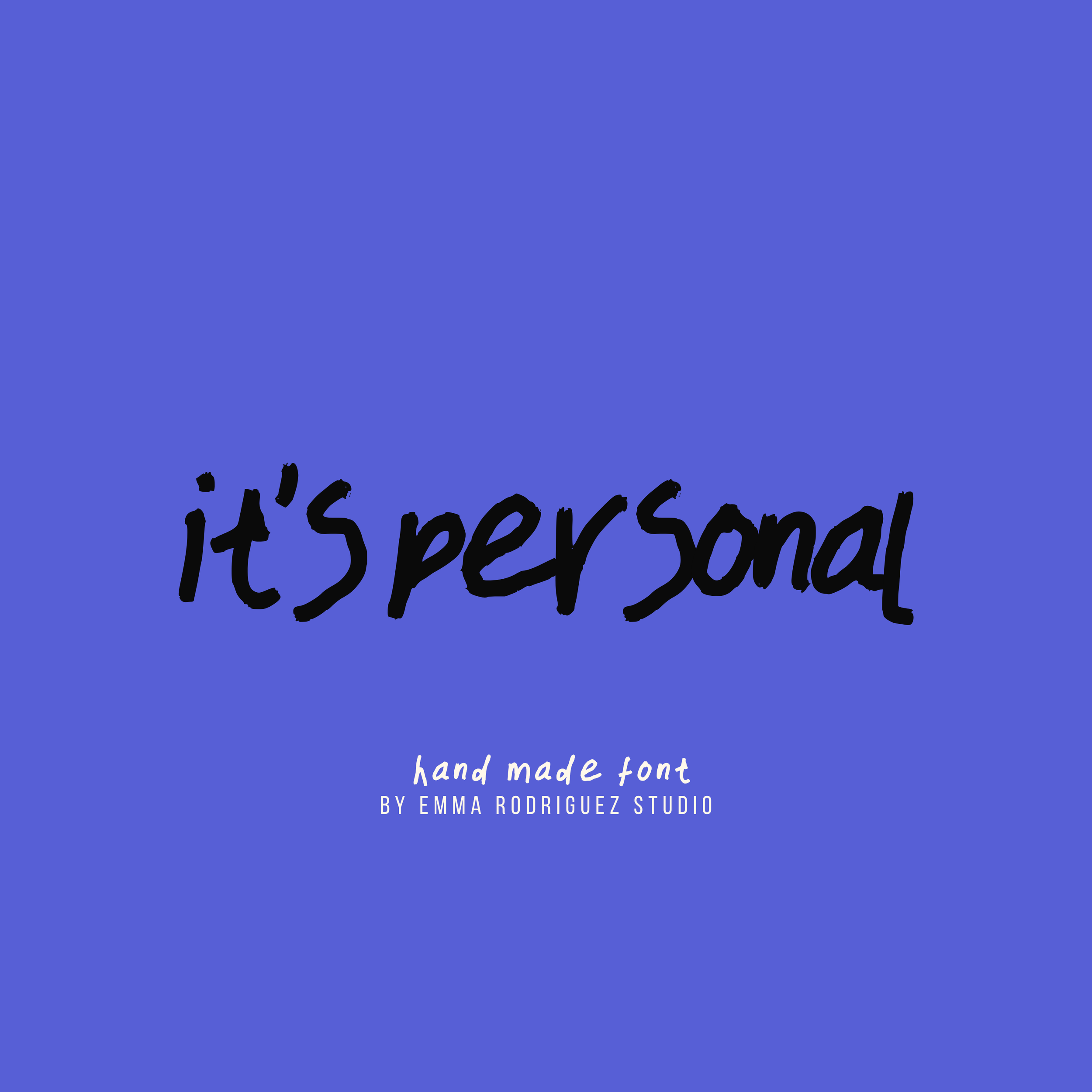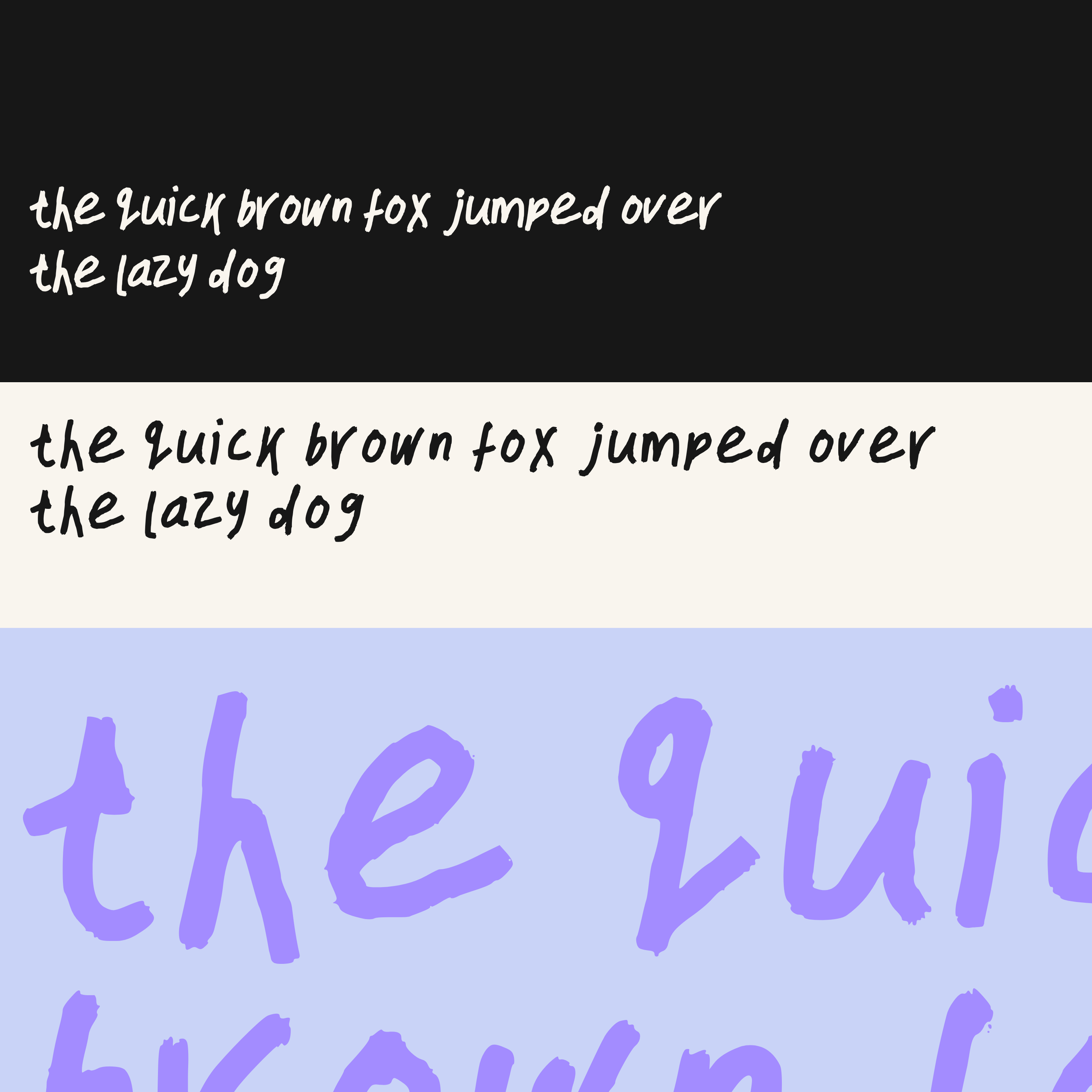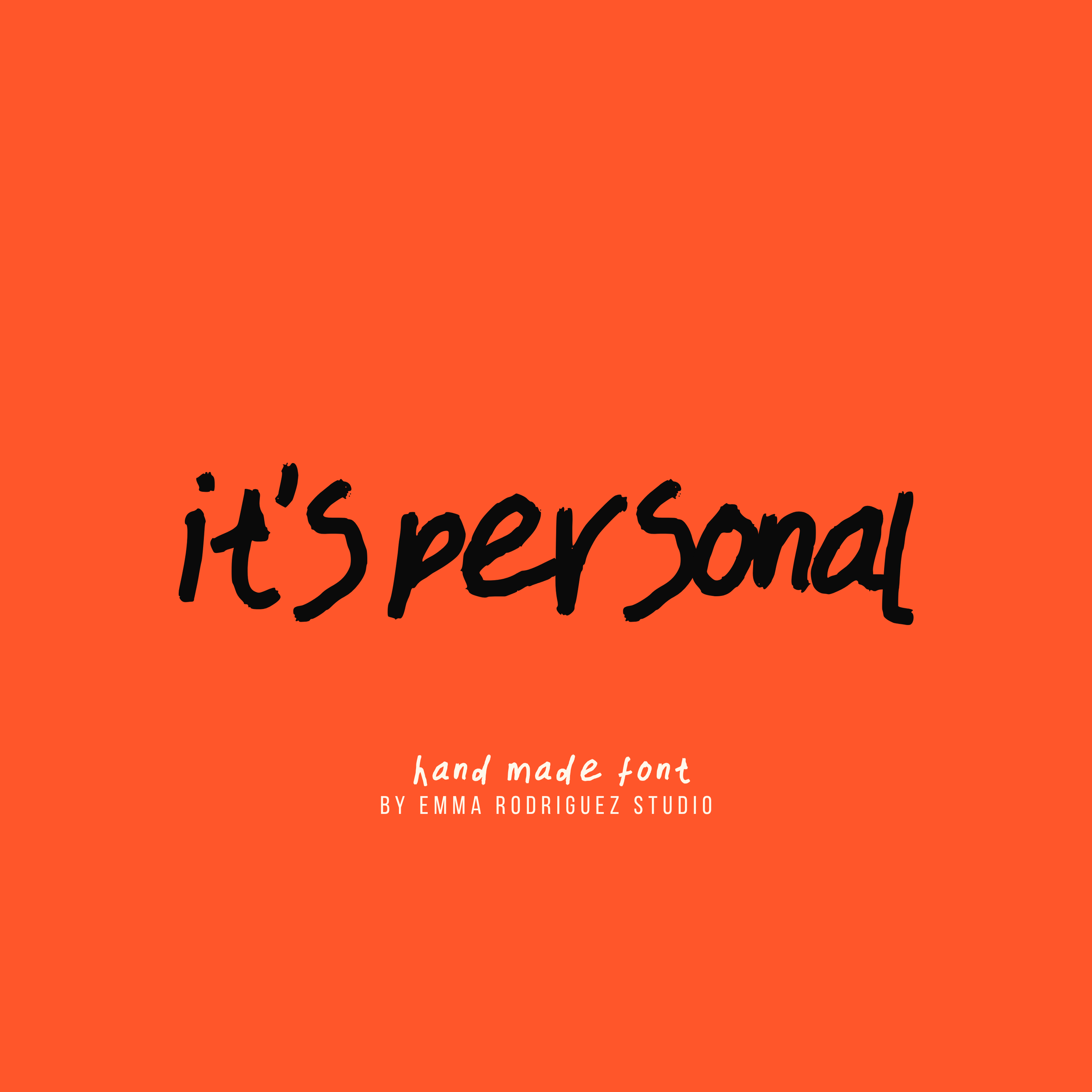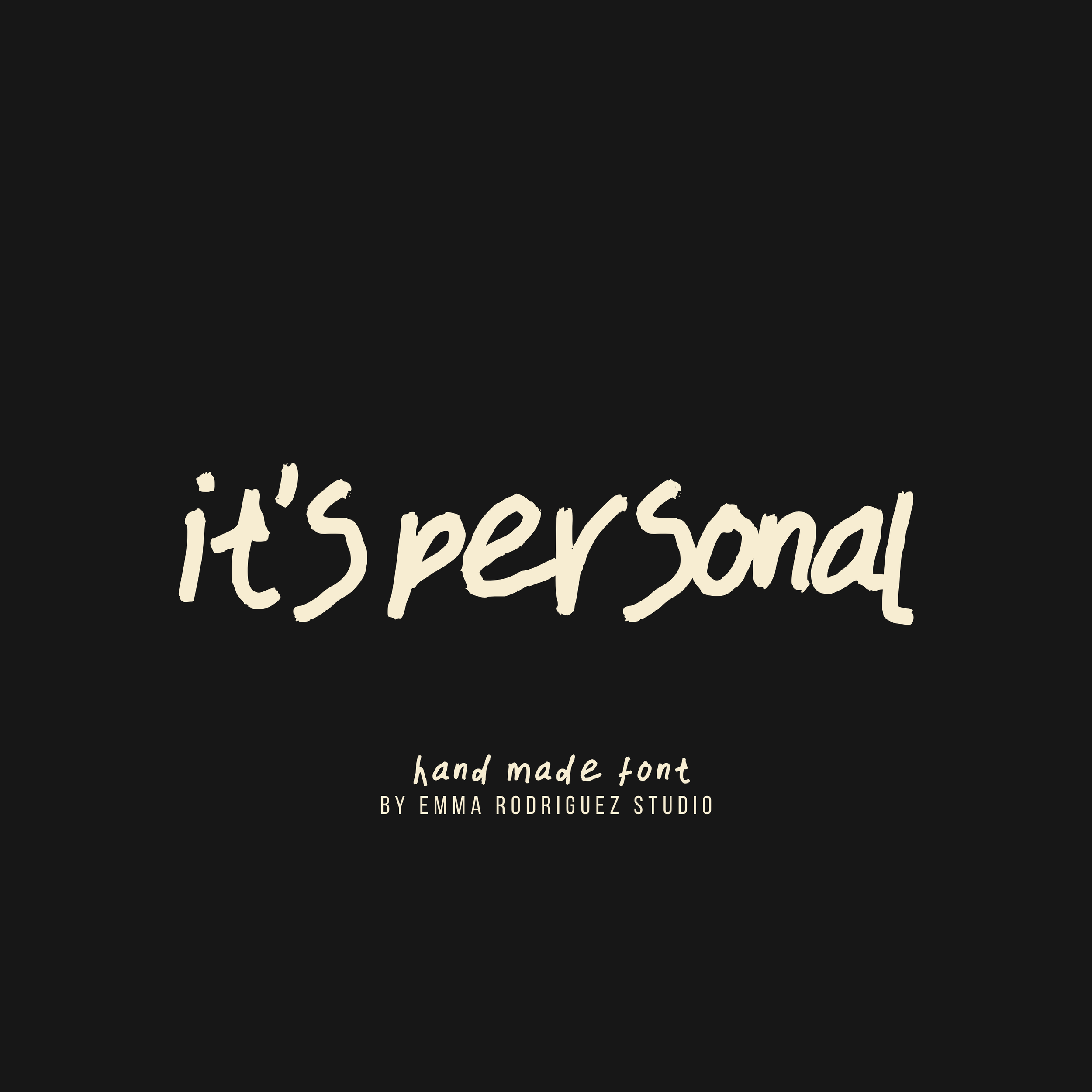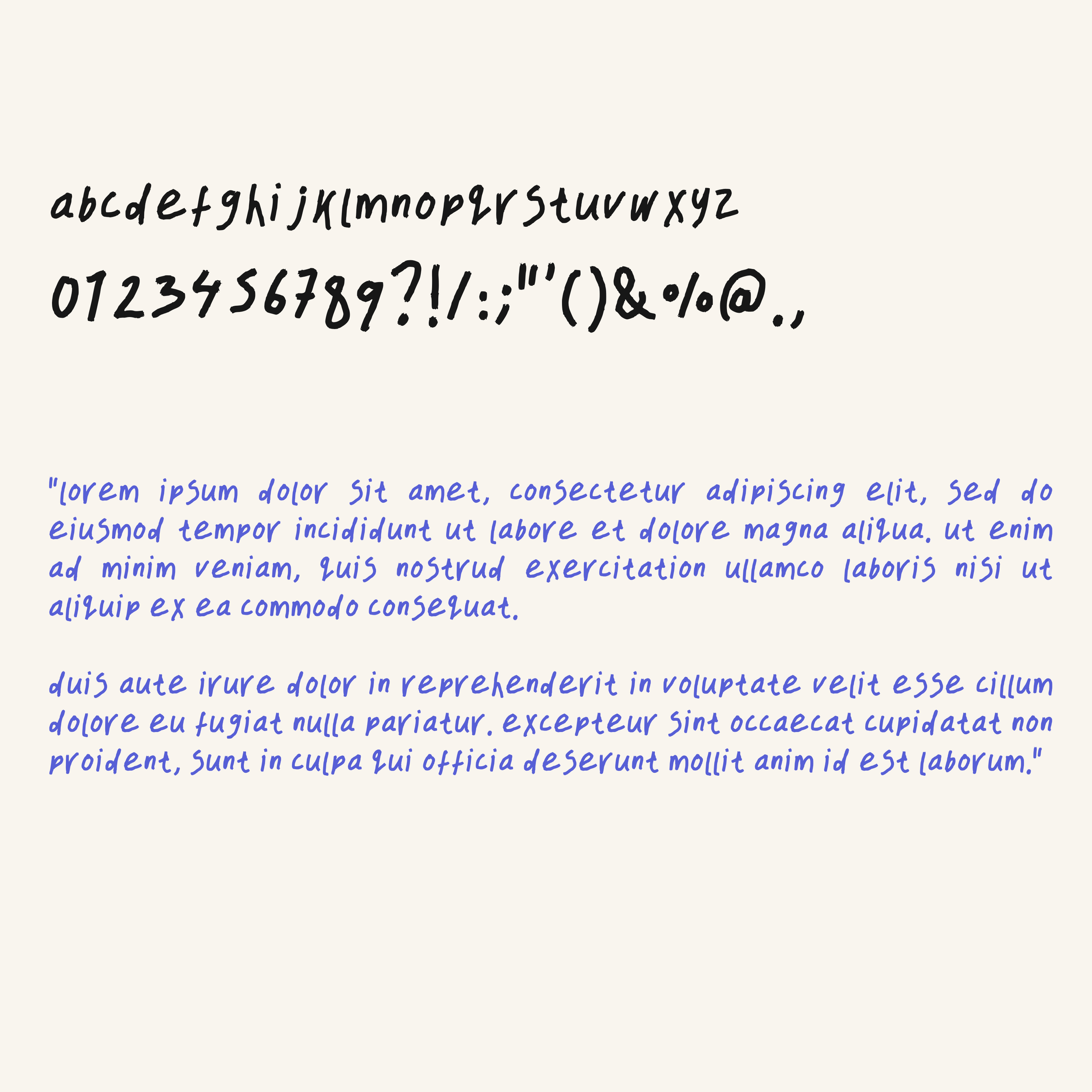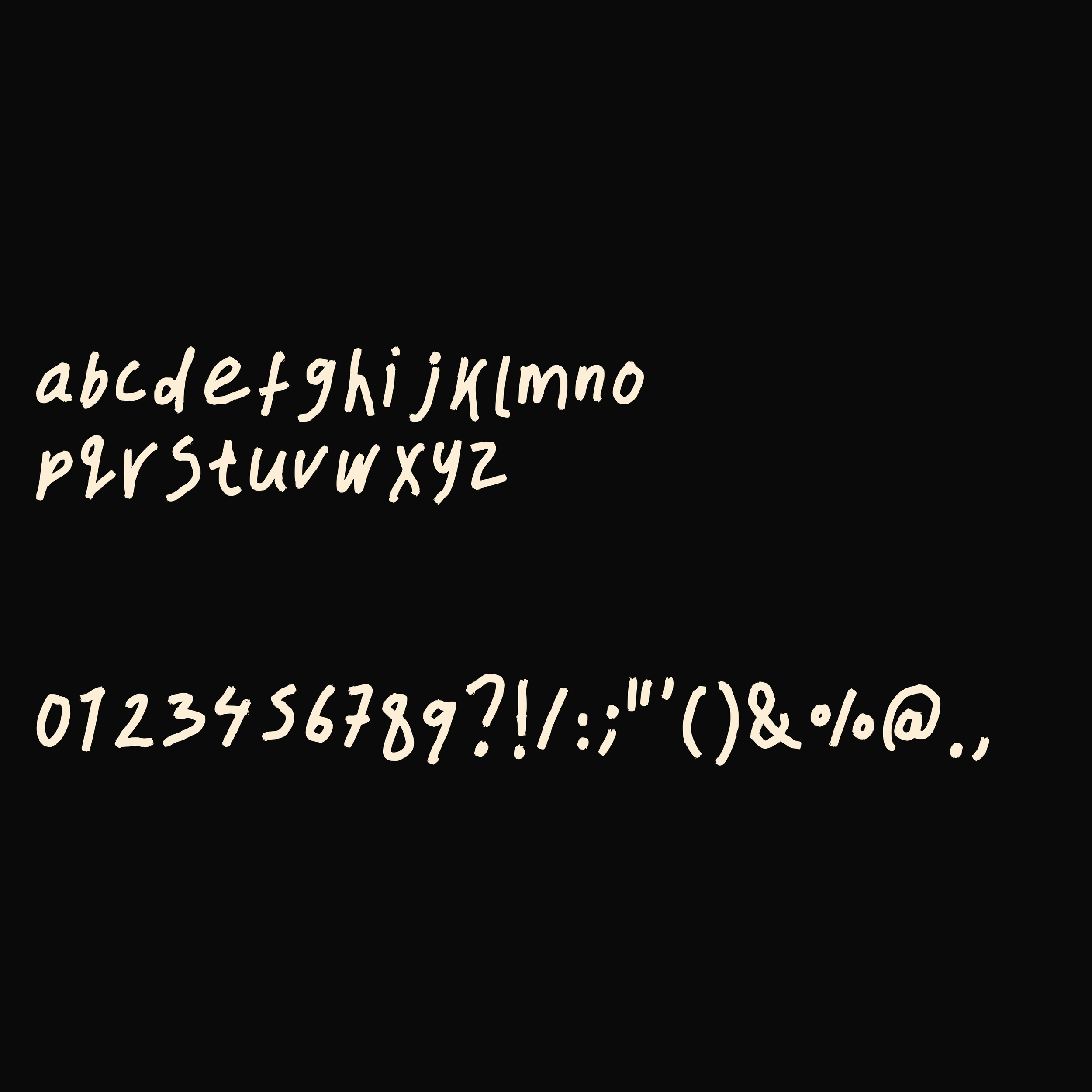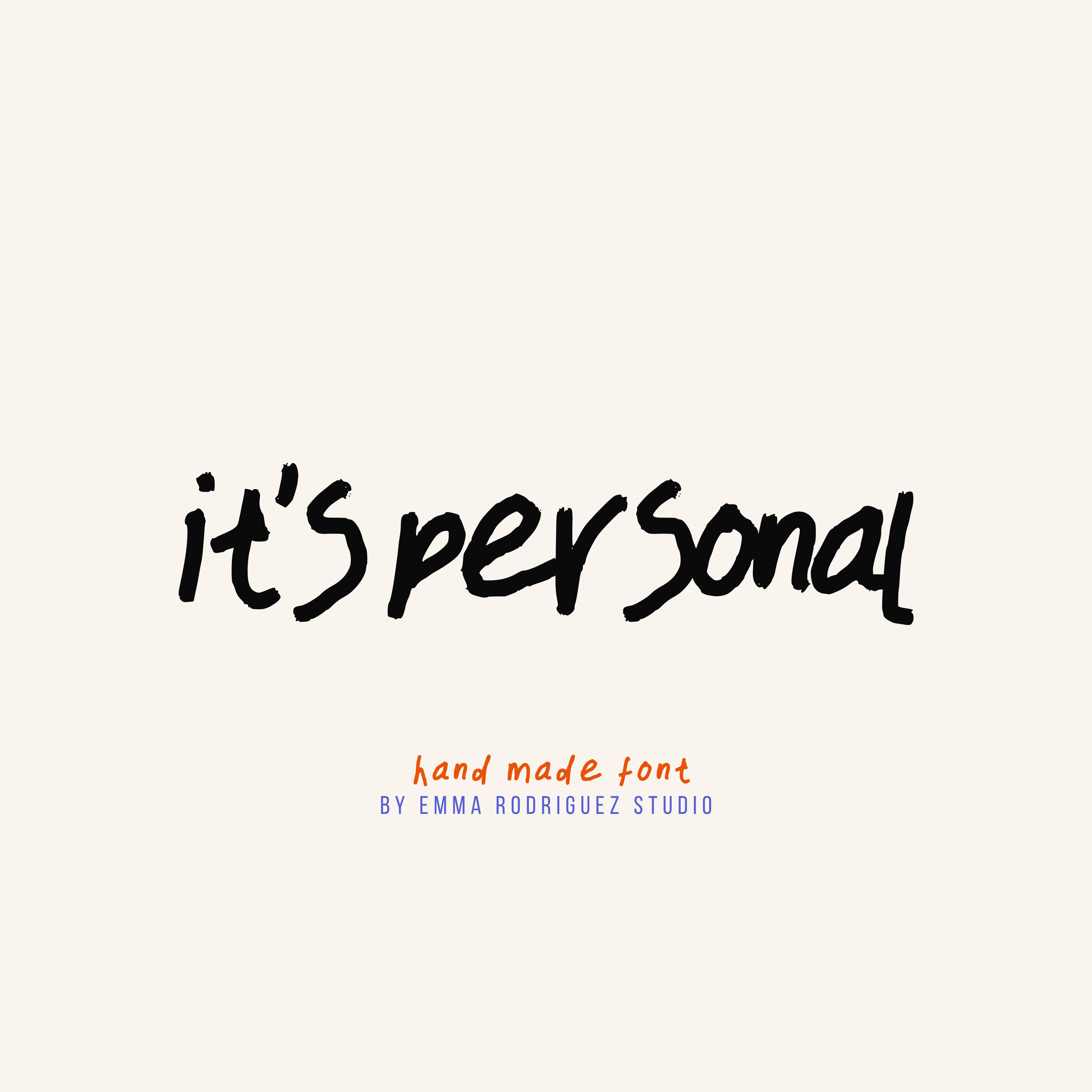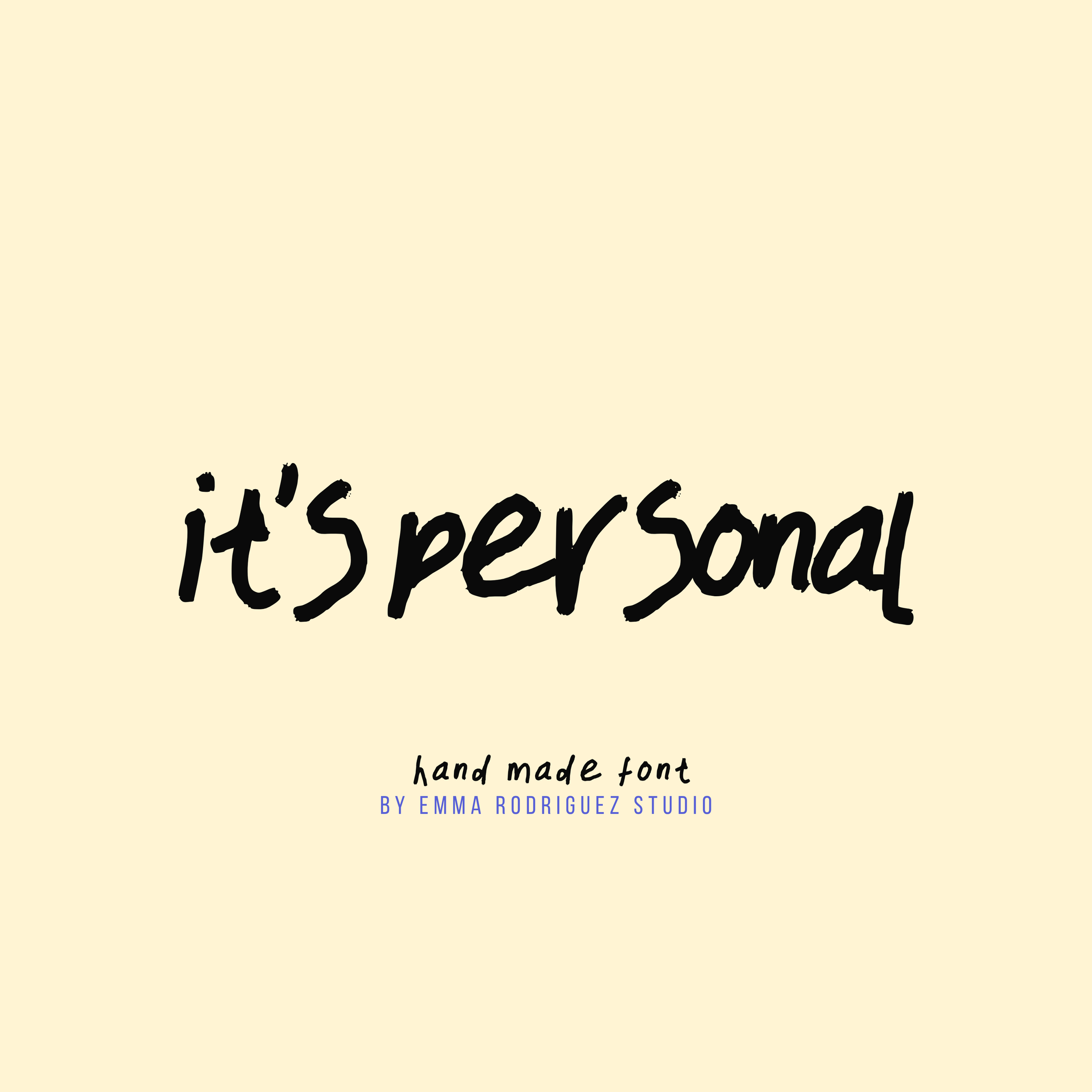
It's Personal Font - Scribble Handwritten Type
It’s Personal is a hand-drawn notebook font with loose, expressive lettering and an informal handwritten finish. Designed for graphic designers, illustrators, artists, small businesses and Etsy sellers, it brings a personal, imperfect feel to branding, posters, packaging, social media graphics and creative merchandise.
The uneven strokes and natural letter shapes are intentional, giving the font the character of quick handwritten notes rather than polished digital lettering.
• Lowercase letter set
• Numbers and basic punctuation
Please note that It’s Personal contains lowercase letters only. An uppercase version is not included.
Fonts by Emma Rodriguez Studio are made to have personality. Expect naive shapes, wonky details, playful imperfections and type that doesn’t take itself too seriously. They’re not designed for clean, minimal branding. They’re for bold, quirky, maximalist projects that need something a little stranger, sillier and more expressive.